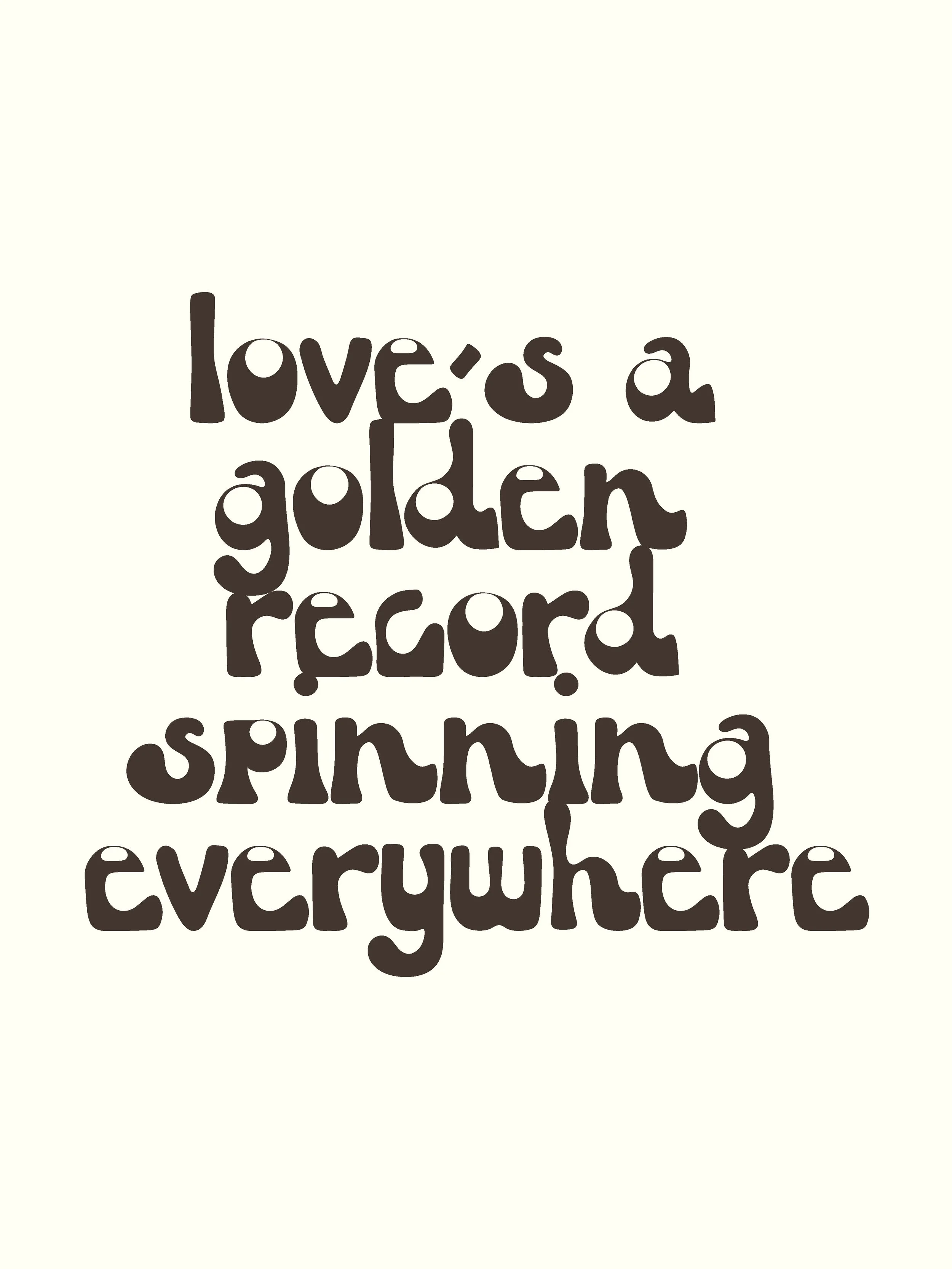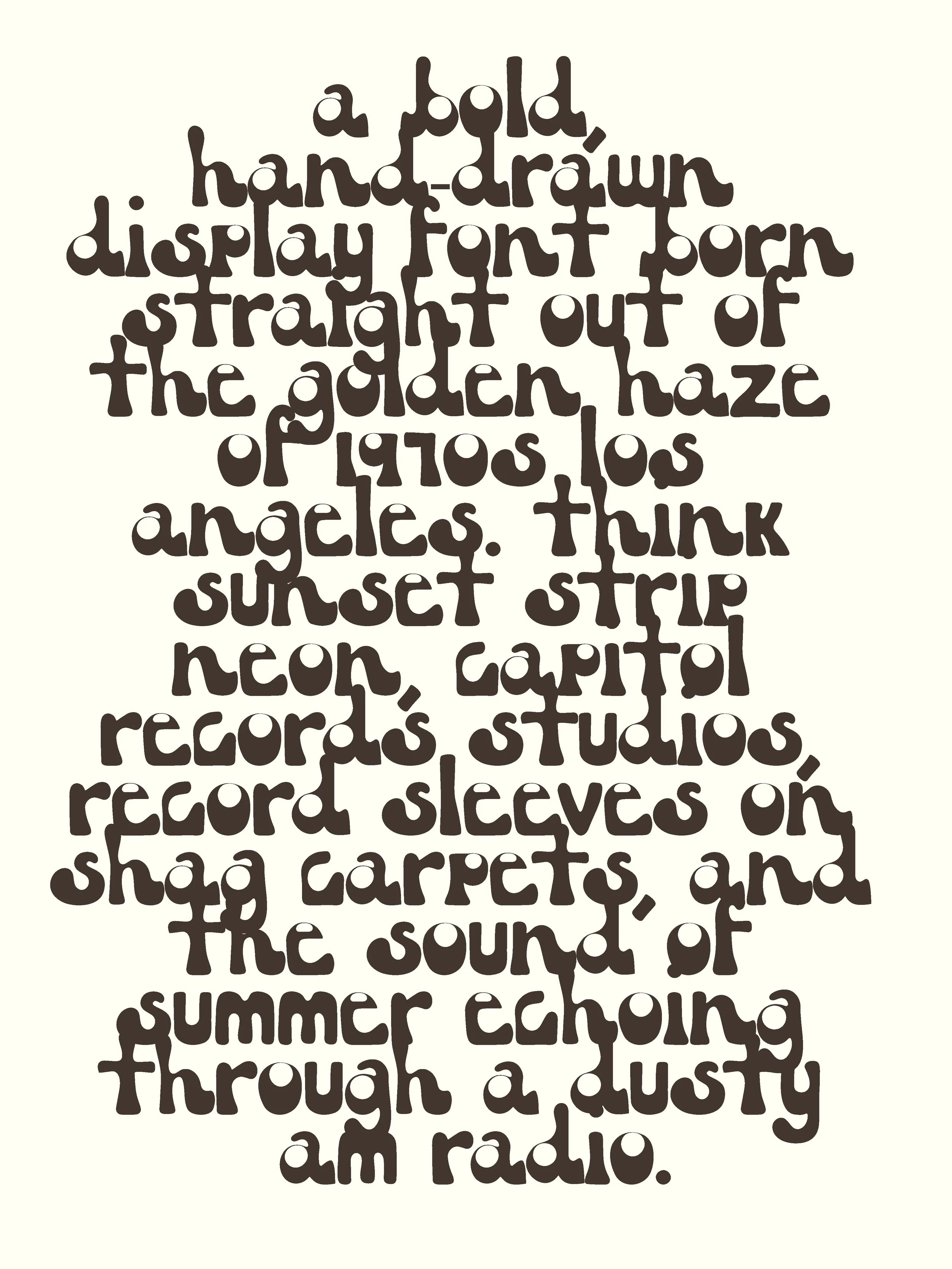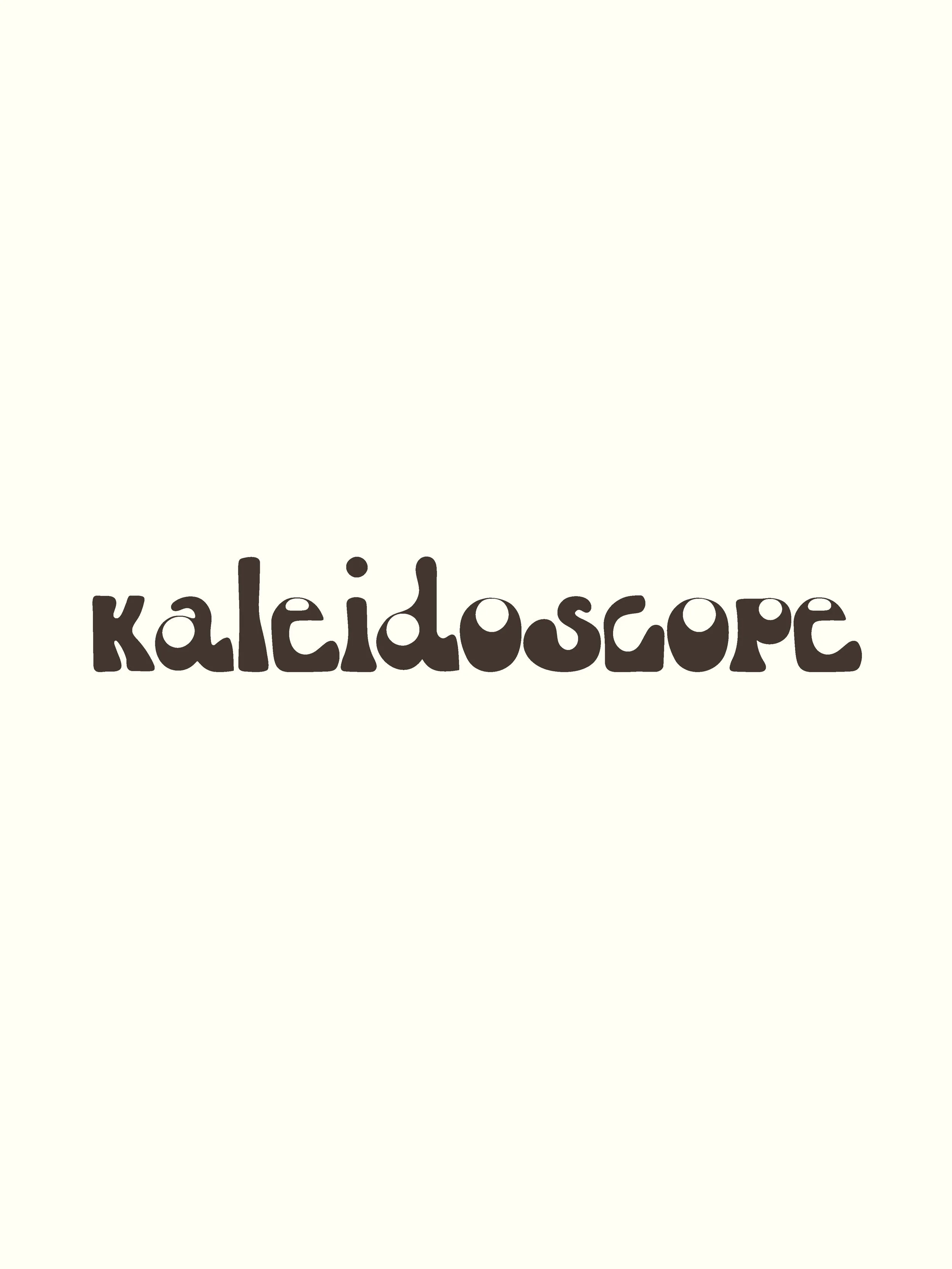
Kaleidoscope is a bold, hand-drawn display font that drifts in from the golden haze of 1970s Los Angeles. Think Sunset Boulevard at magic hour — neon buzzing, record stores spilling sound onto the street, and posters pasted up on every corner. It’s got the rhythm of Capitol Records studios, the warmth of a dusty AM radio, and the groove of a well-loved vinyl sleeve.
This all-caps typeface carries grit, soul, and a little shimmer — perfect for vintage album covers, merch drops, retro surf shop signage, or any project that needs a blast of analog sunshine. Its imperfect, hand-sketched edges feel alive, echoing the era of bell bottoms, jam sessions, and wild-eyed ideas.
Music artwork & record labels
Vintage-inspired branding
Posters & zines
Flyers & merch
Any design chasing the spirit of 70s LA